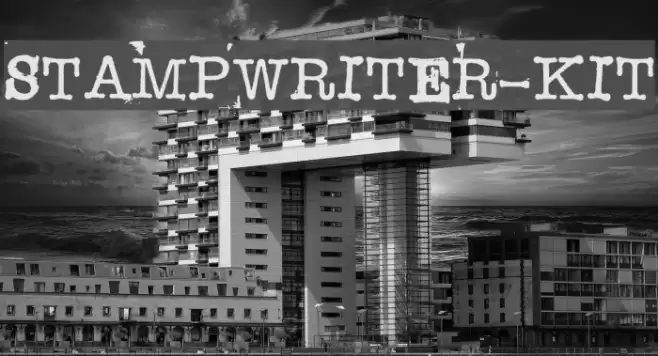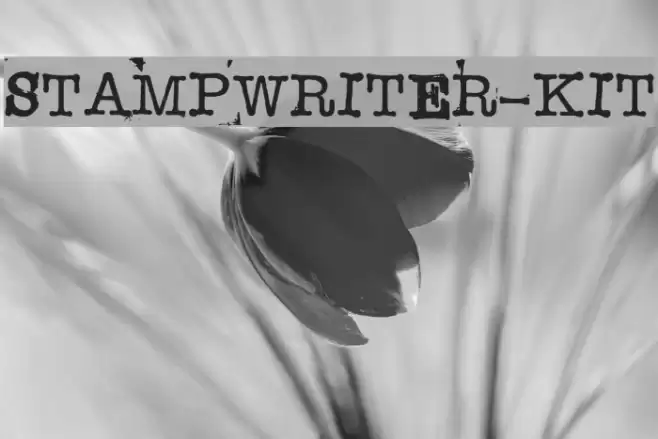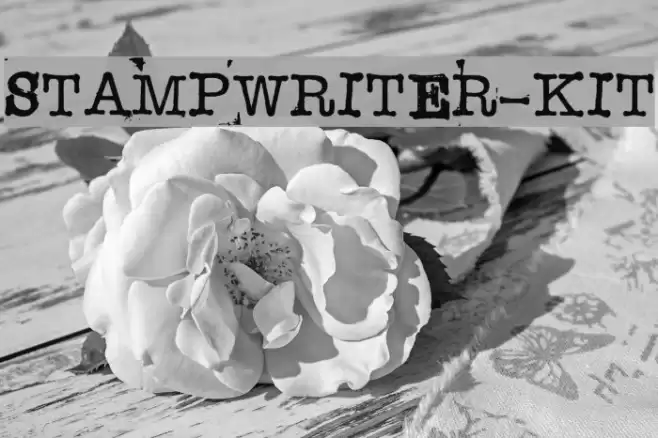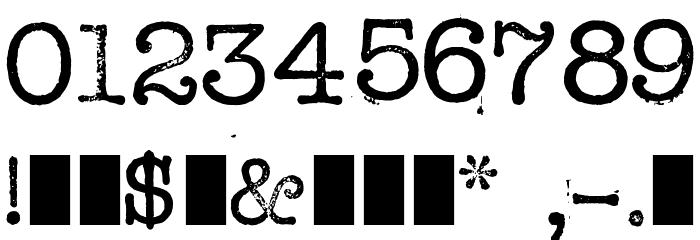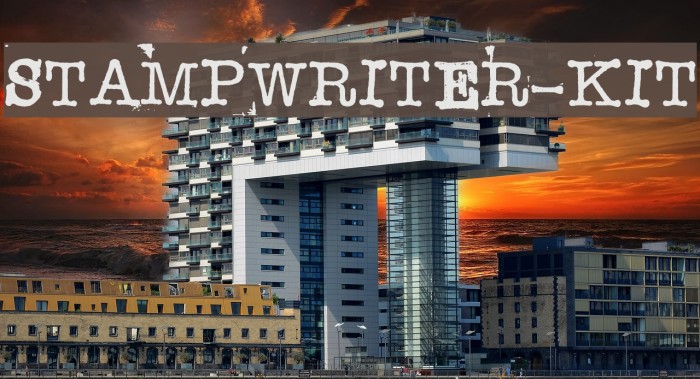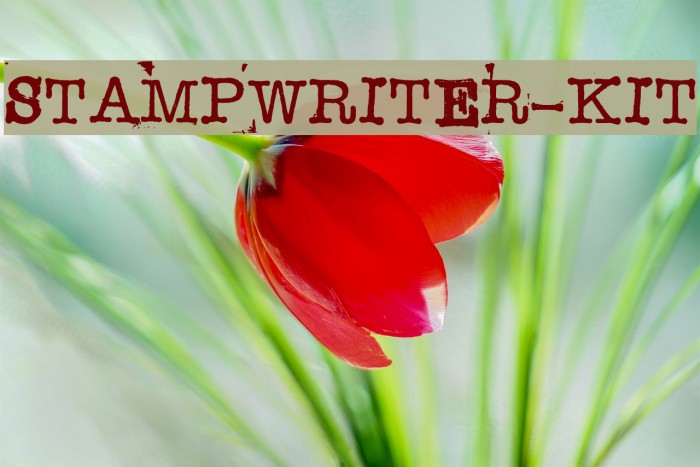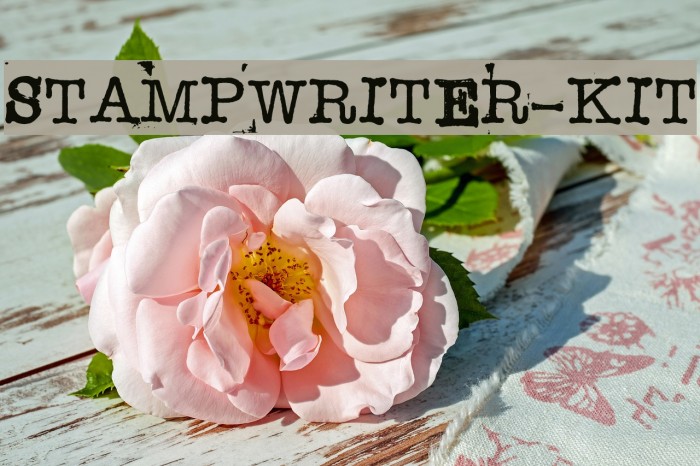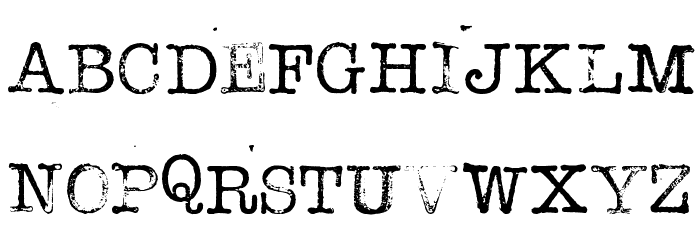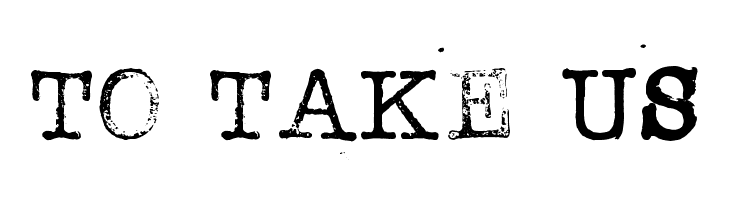
STAMPWRITER-KIT Font
STAMPWRITER-KIT Description
This font features a distressed, vintage typewriter style with a textured appearance that mimics the look of old, worn-out stamps. The characters have a serif design with irregular edges, giving them a handcrafted, authentic feel. The uppercase and lowercase letters maintain a consistent style, while the numbers and special characters complement the overall aesthetic. The font's unique, rugged texture makes it ideal for projects that require a retro or industrial look.
A distressed, vintage typewriter-style serif font with a textured, stamp-like appearance from Uncategorized fonts.
- Proposed Projects: Ideal for vintage-themed designs, retro posters, industrial branding, and artistic projects that require a handcrafted look.
- Overall Style: Vintage